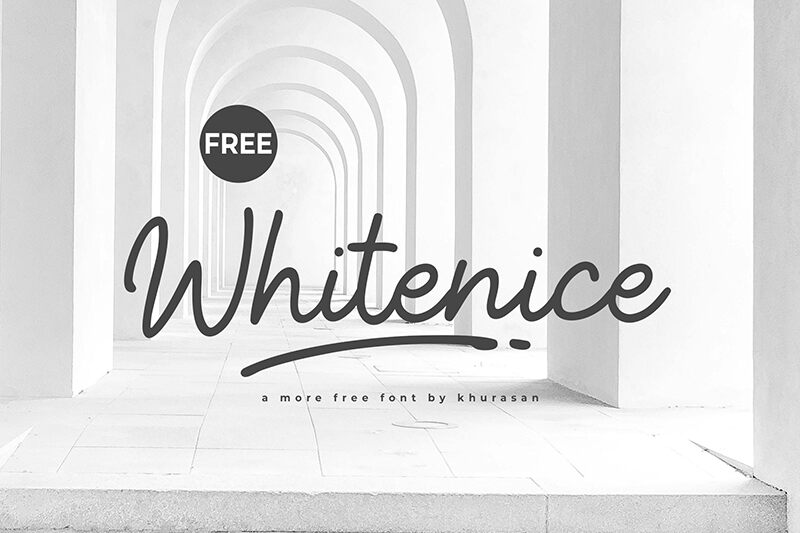
Whitenice
Whitenice font is a free handwritten font with a flowing and relaxed appearance. Designed by Khurasan, the font is modern in style and exudes casual elegance. Its carefree strokes carry an artistic flair that puts together harmonious elements that can truly pull off exceptional projects.
Use it in logos, labels, invitations, greeting cards, product packaging (cosmetics for example), social media posts etc. This beautiful typeface can also prove useful in more personal uses such as journals or diaries..